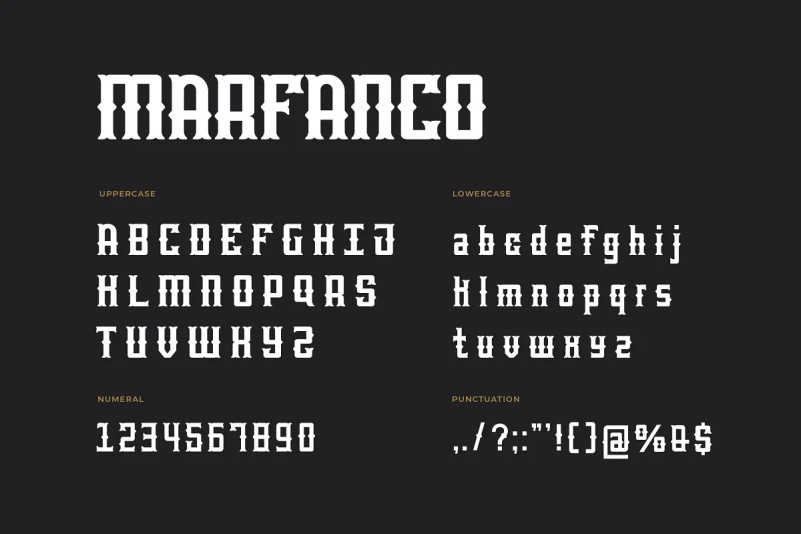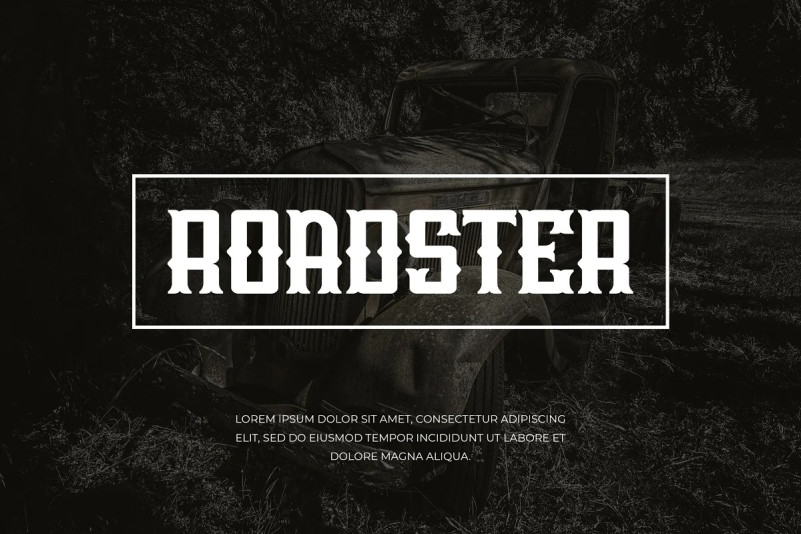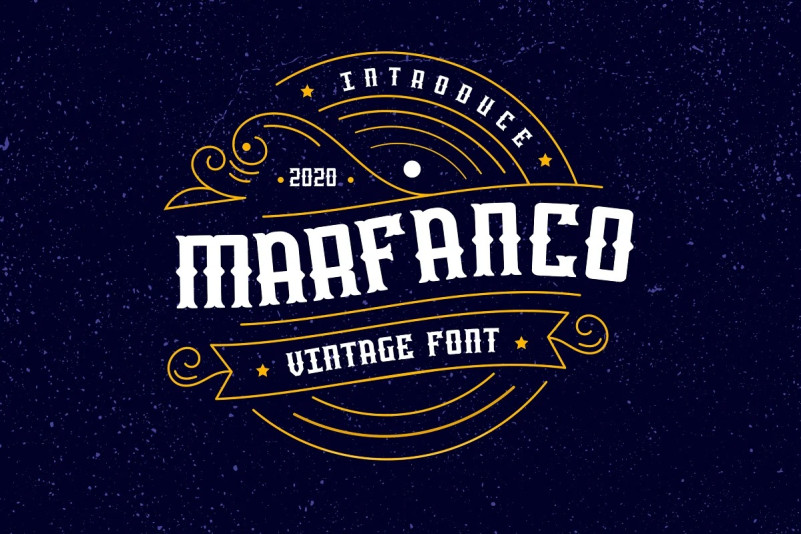
Marfanco Font
Marfanco Font – Serif Display Font. Modern Serif font that feels beautiful classy, elegant, and modern. This font is ideally suited for a wide variety of projects, such as signature, stationery, logo, wedding, typography quotes, magazine or book covers, website headers, clothing, branding, packaging design, and more. Also, fashion-related branding or editorial design displays both masculine and feminine qualities.